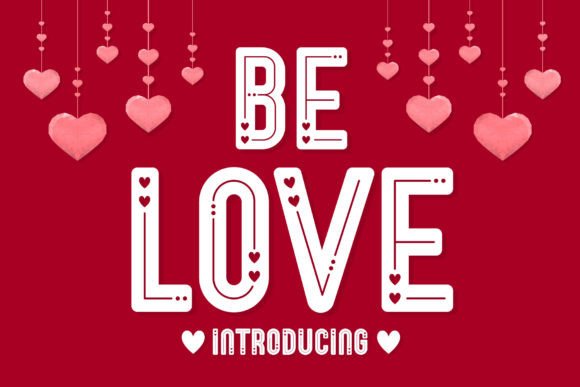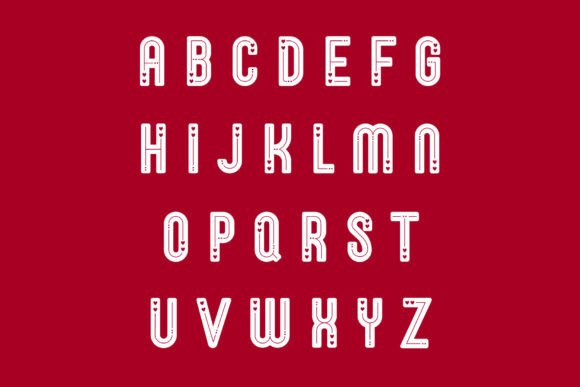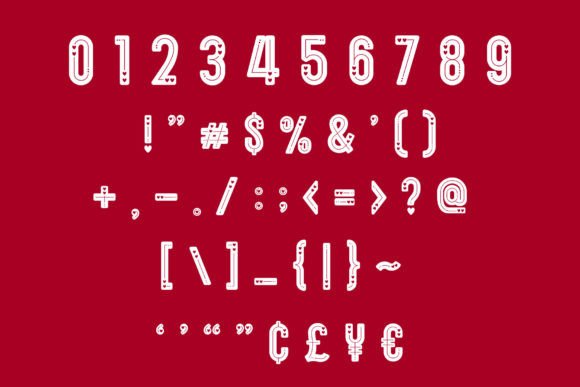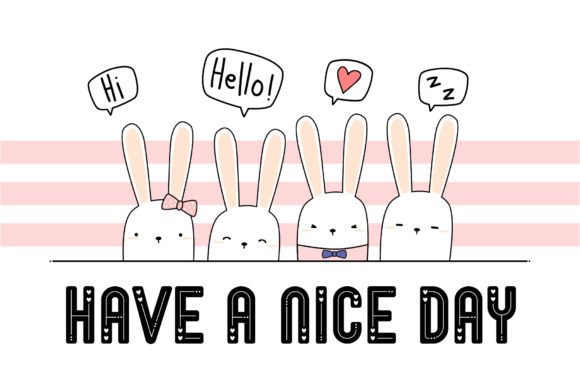
Be Love Font
About the Be Love Font
Presenting Be Love Font, a unique and stylish typeface that will make your work stand out. Be Love is a decorative font that is cute, bright, and fun. It is perfect for Valentine’s or Mother’s Day designs, especially when combined with bright and pastel colors. Add this beautiful font to each of your creative ideas, and notice how it makes them stand out!
Be Love Font Usage Examples